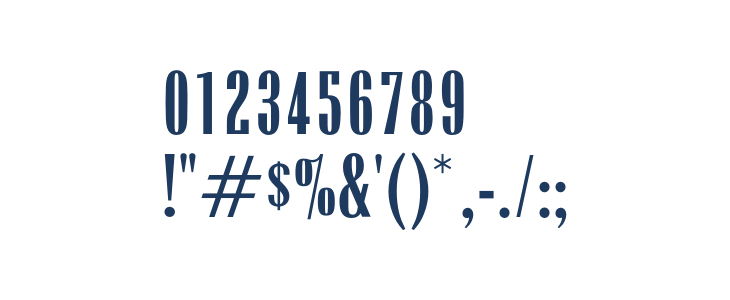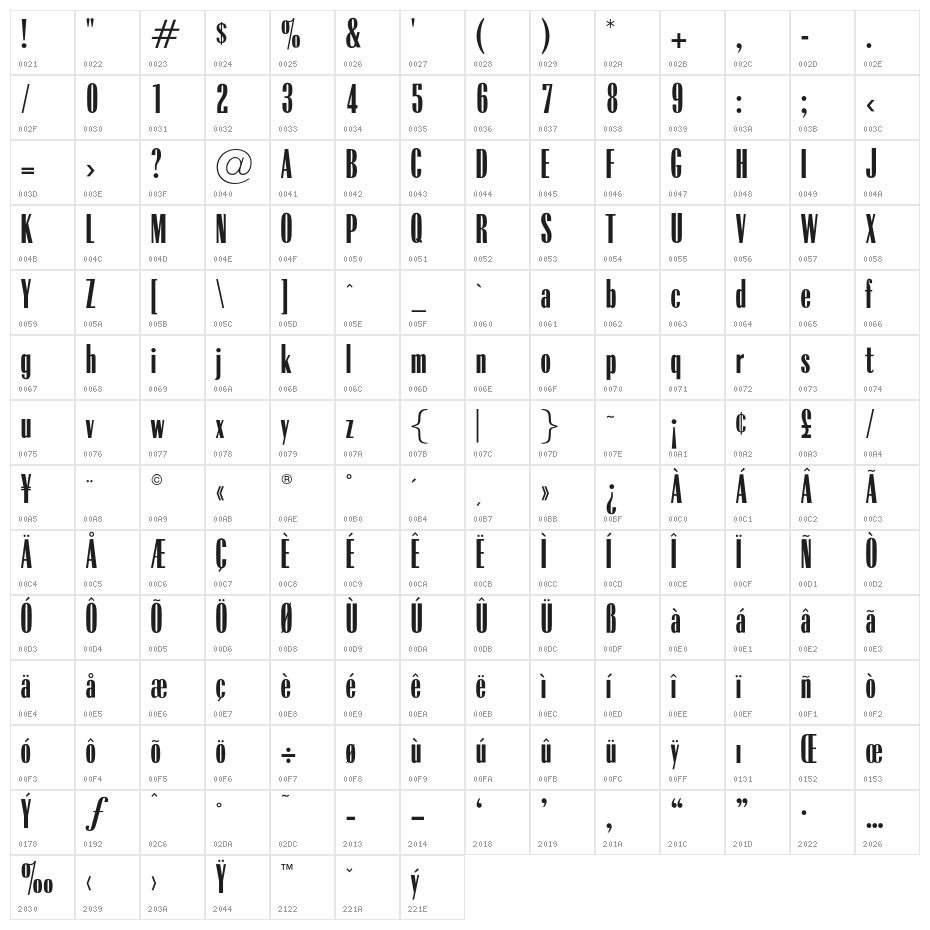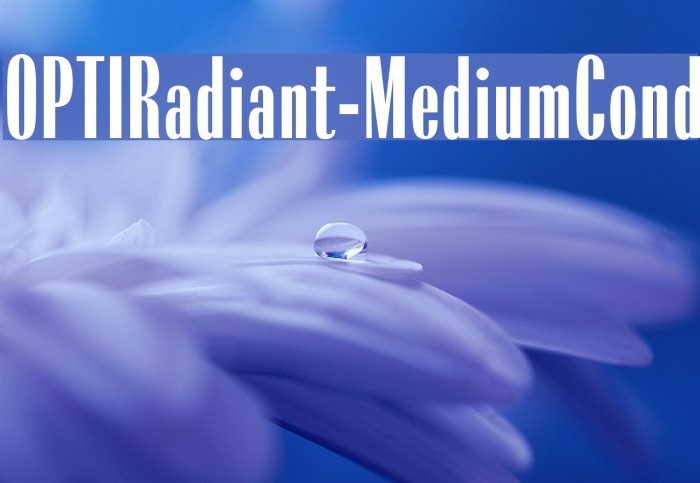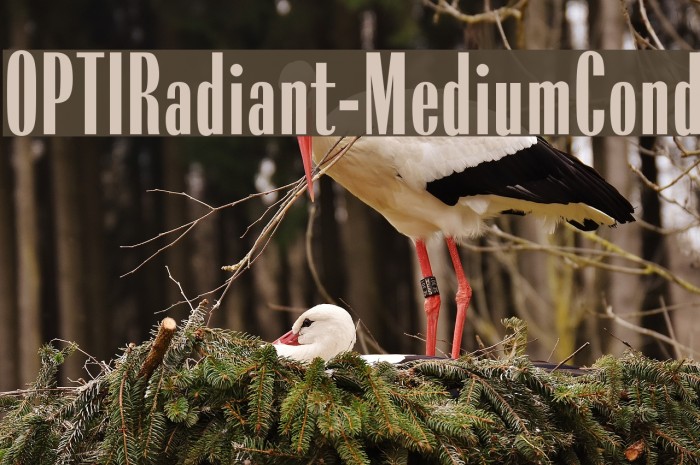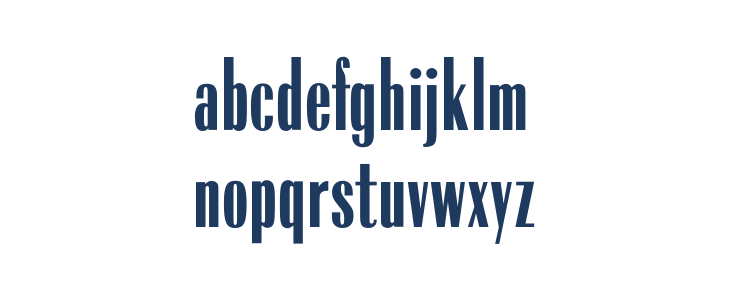
OPTIRadiant-MediumCond Font
OPTIRadiant-MediumCond Description
This font features a bold and condensed style, characterized by tall, narrow letters with a strong vertical emphasis. The uppercase letters are particularly striking, with uniform stroke widths that give a clean and modern appearance. The lowercase letters maintain the condensed form, ensuring consistency across text. Numbers and special characters are designed to match the overall aesthetic, providing a cohesive look. The font's high contrast between thick and thin strokes enhances readability and adds a dynamic quality to the text. Its structured form makes it suitable for impactful headlines and titles.
| Proposed Projects | Ideal for headlines, posters, branding, and advertising where a strong visual impact is needed. |